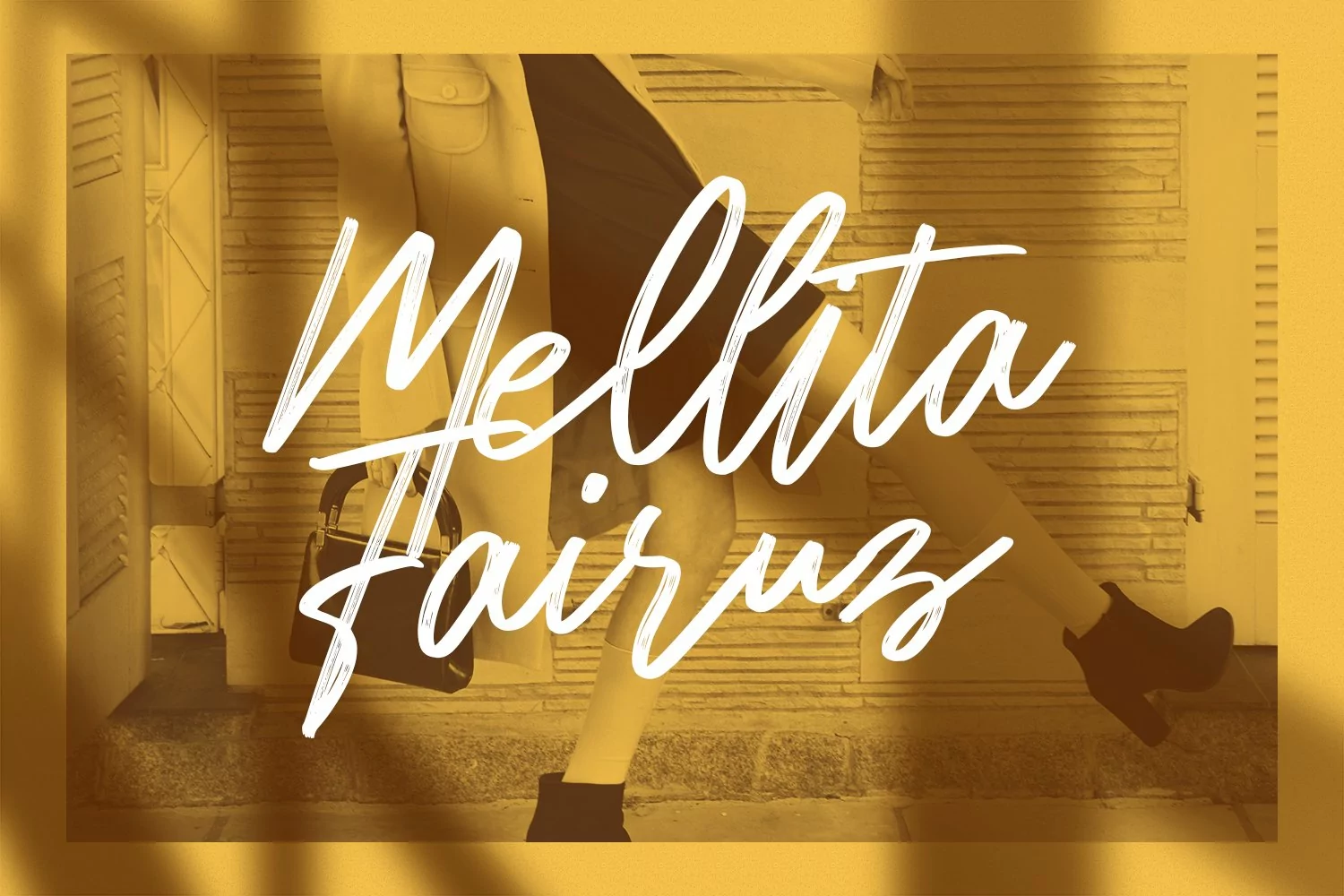
Antigor is a modern brush script font. With smooth brush stroke, fun character with a bit of ligatures and alternates. To give you an extra creative work. Antigor font support multilingual more than 100+ language. This font is good for logo design, Social media, Movie Titles, Books Titles, a short text even a long text letter and good for your secondary text font with sans or serif. Make a stunning work with Antigor font.
Antigor